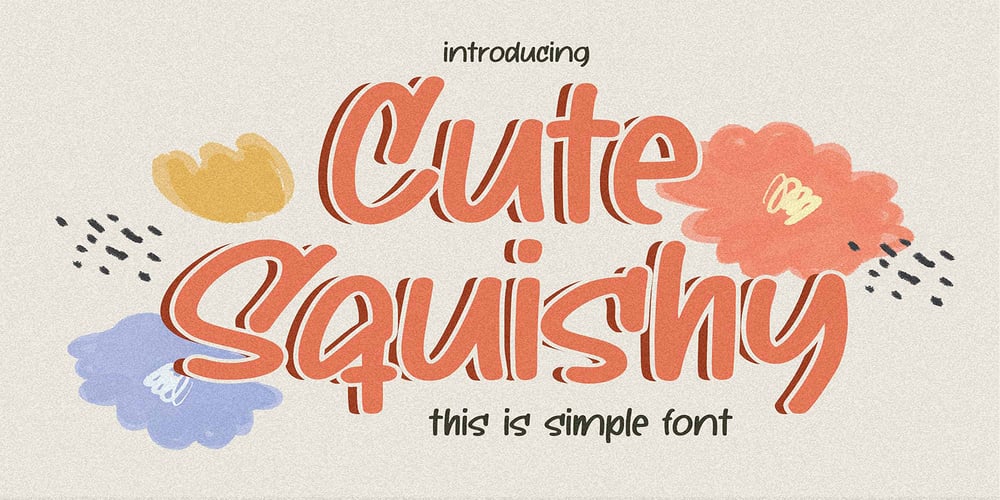
Cute Squishy Font Family was designed by Abdul Malik Wisnu, Anang Fibriyanto and published by Gassstype. Cute Squishy contains 1 styles and family package options. Hello Everyone, introduce our new product Cute Squishy This Is Simple Font with a natural feel. It is perfect for any design project as Invitation,logo, book cover, craft or any design purposes.Cute Squishy is Inspired by Food Logo style and combination with Unique Craft style. that will fulfill your design needs for quotes,sporty theme, logotype, wordmark, etc. This has many opentype features and support multi language.